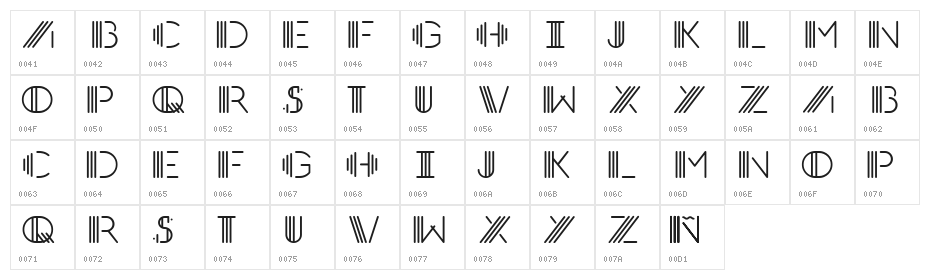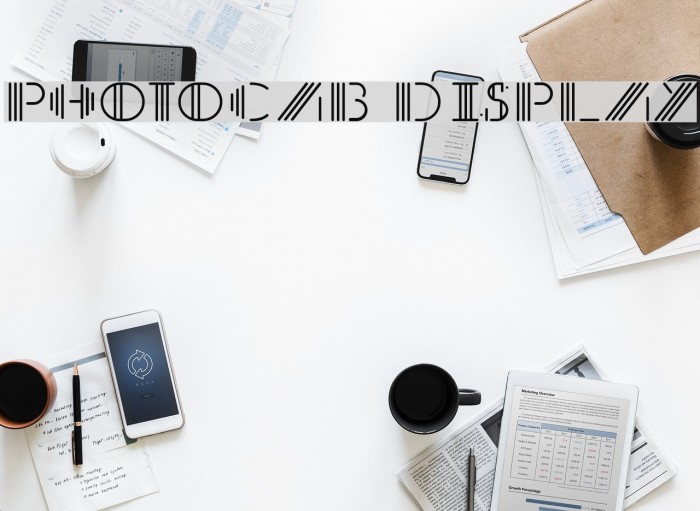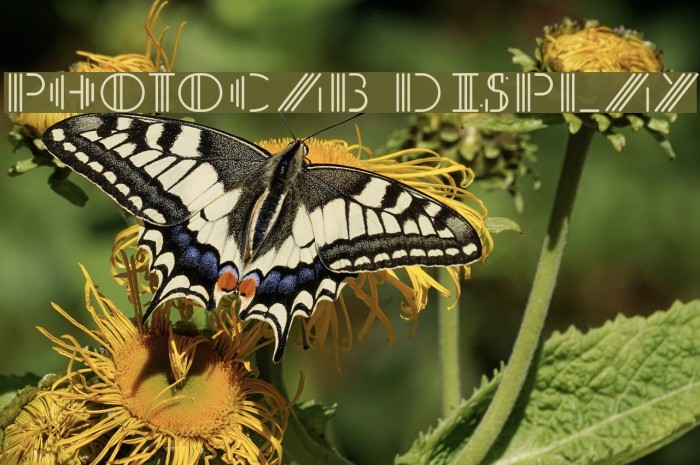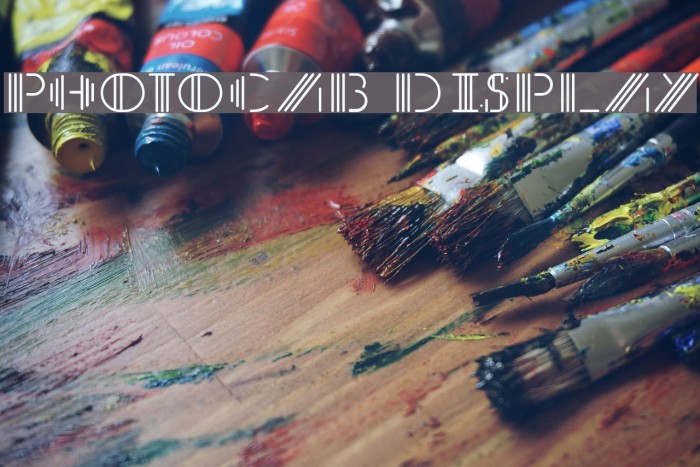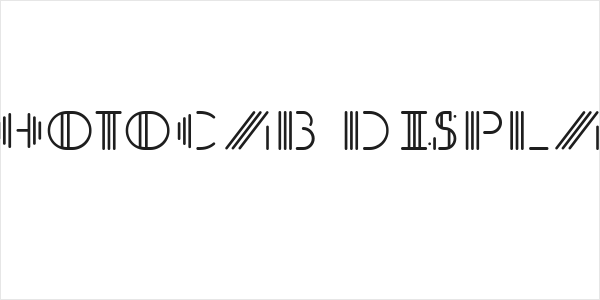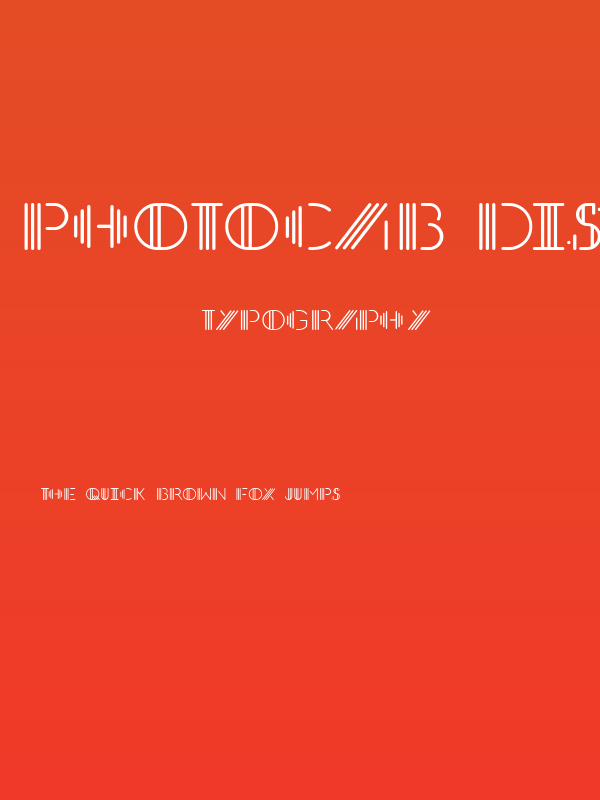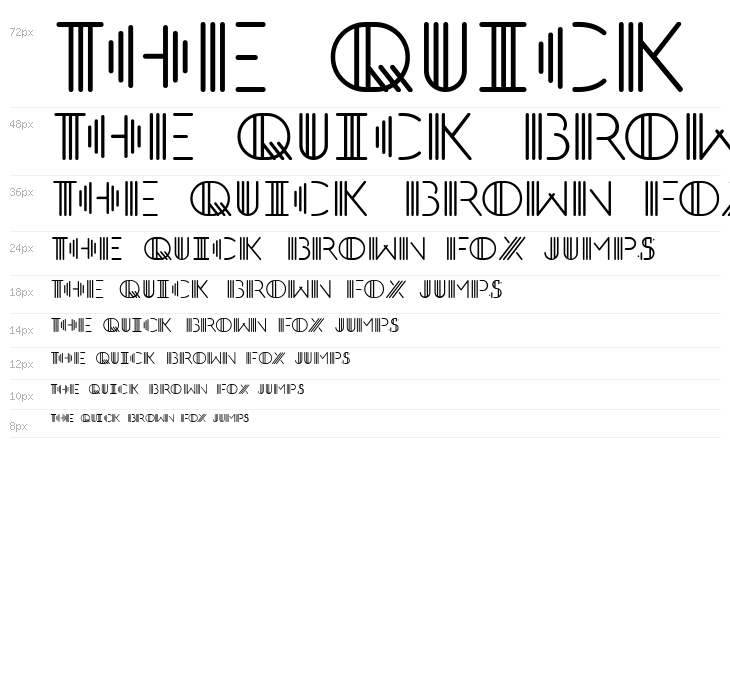
PhotoCab Display Font
PhotoCab Display Description
This font features a unique and modern design with a distinct geometric style. Each character is composed of multiple parallel lines, creating a sense of movement and rhythm. The uppercase letters are particularly striking, with their bold, linear construction that gives them a futuristic and avant-garde appearance. The font maintains a consistent line thickness throughout, contributing to its cohesive and structured look. Its clean and minimalistic design makes it suitable for contemporary and creative projects, where a standout and artistic typeface is desired.
| Proposed Projects | Ideal for branding, posters, album covers, and any project seeking a modern and artistic touch. |